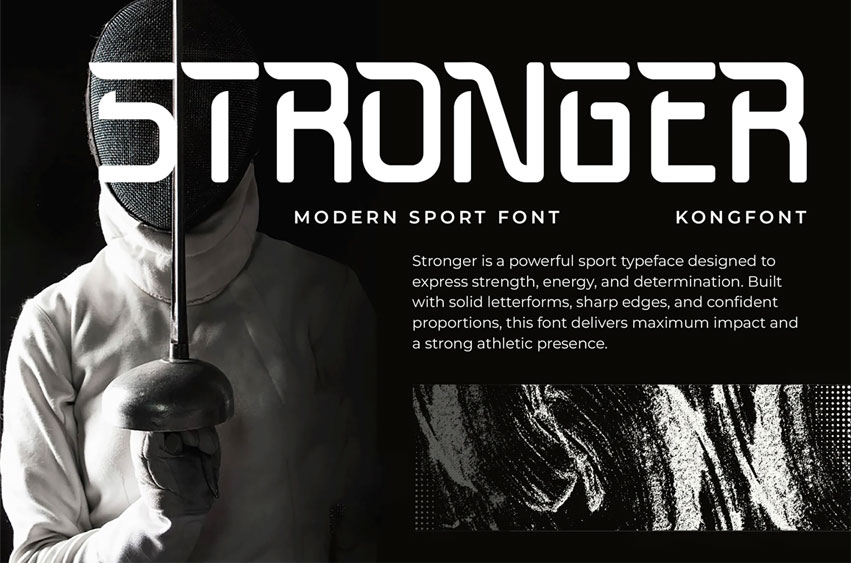
Stronger Font is a modern sport font designed to deliver high energy, bold impact, and unstoppable momentum. With its sharp angles, thick strokes, and dynamic structure, Stronger captures the spirit of competition and athletic performance perfect for designs that demand strength and intensity.
Stronger includes uppercase and lowercase letters, numerals, punctuation, and multilingual support, offering flexibility for both digital and print designs. Whether you’re building a sports brand identity, designing a tournament poster, or creating energetic merchandise, Stronger delivers bold confidence and athletic style.